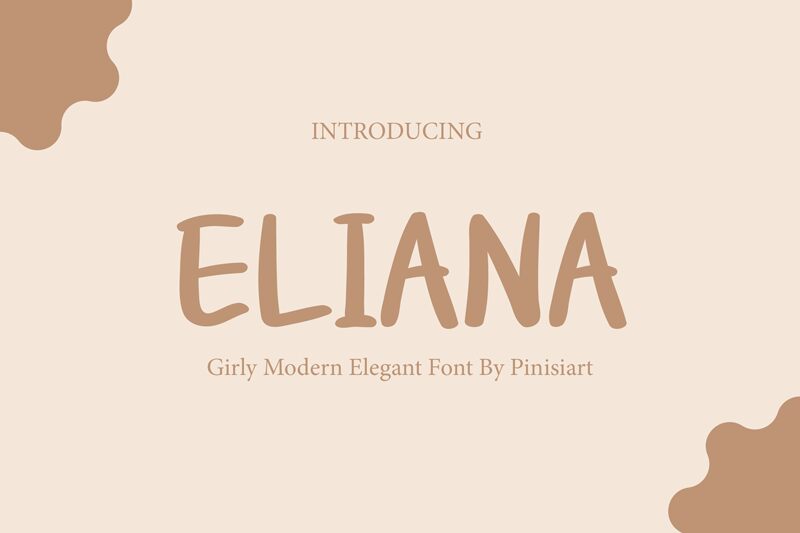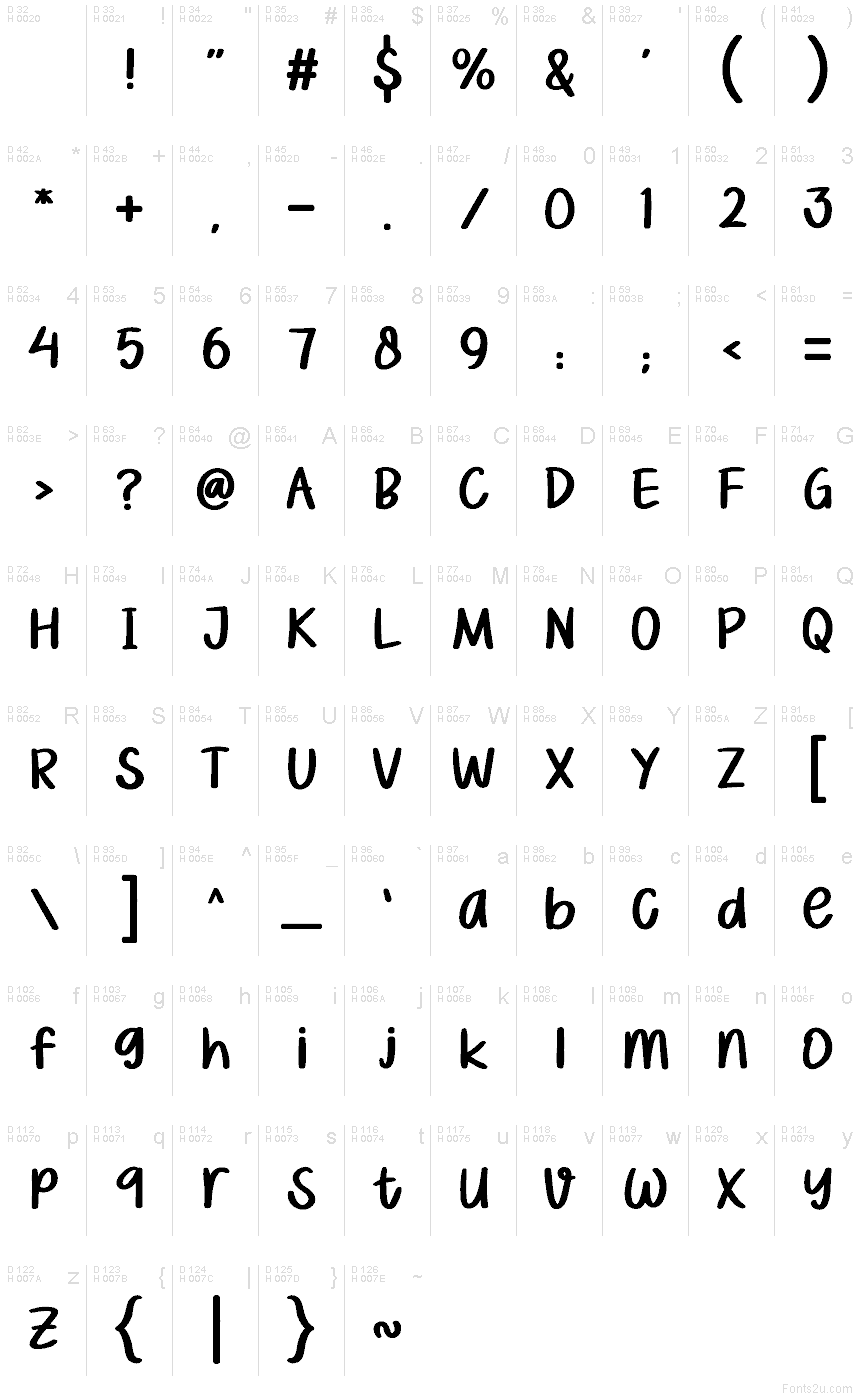
Eliana
Eliana font by Pinisiart is a free bold handwritten font that solves a classic challenge: getting genuine, inky warmth without sacrificing clarity. Its chunky strokes, soft rounded edges, and steady rhythm read cleanly on screens and print, giving headlines a friendly, confident voice that doesn’t smudge into chaos. It looks like a thick paint marker—cozy and approachable, yet tidy.
Using Eliana, you can bring charm to product packaging, kids’ book covers, bakery menus, quote graphics, event flyers, and craft labels. This free font shines on short phrases and brand marks where personality matters. Pair it with a light, neutral sans-serif for body copy, and let Eliana carry the smile in your headers.